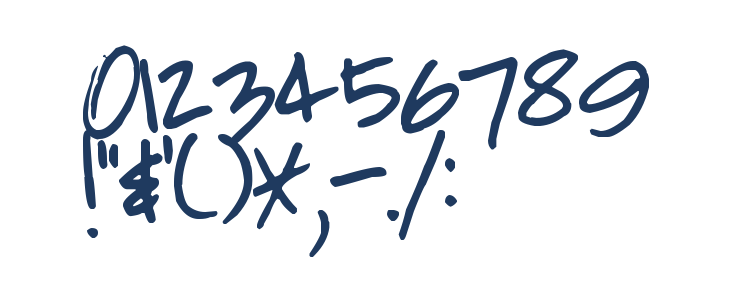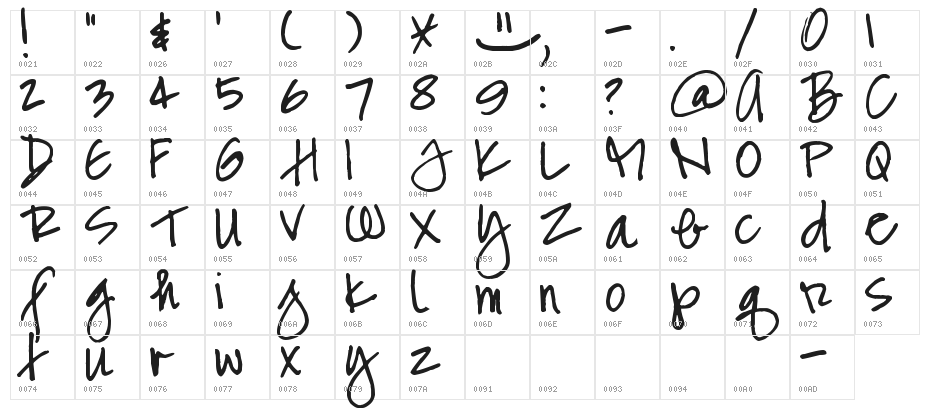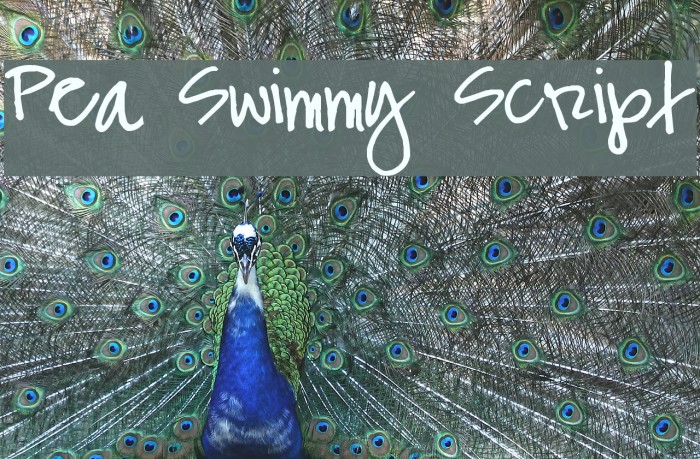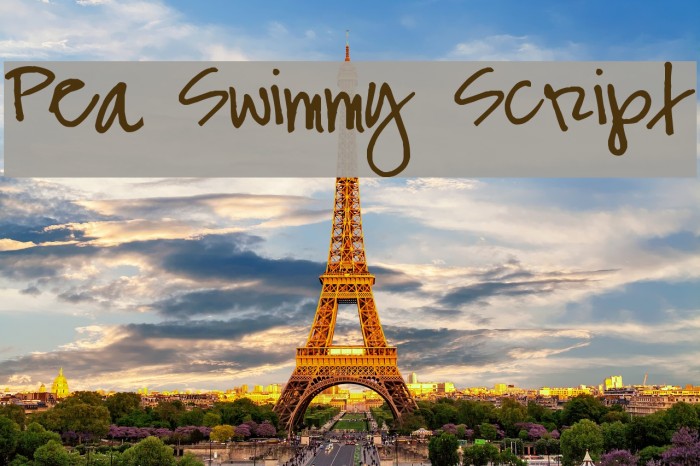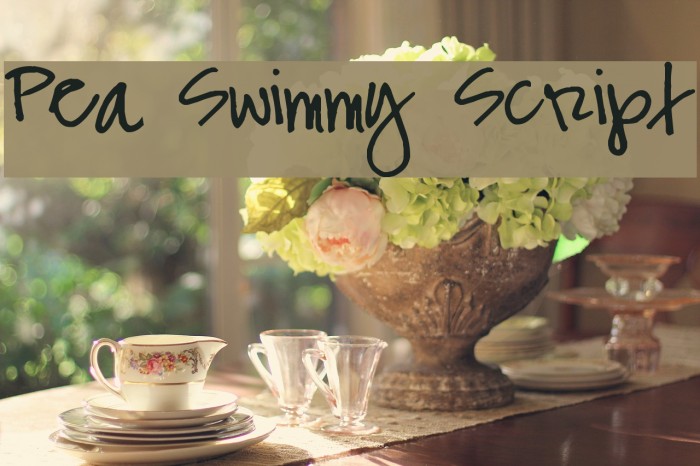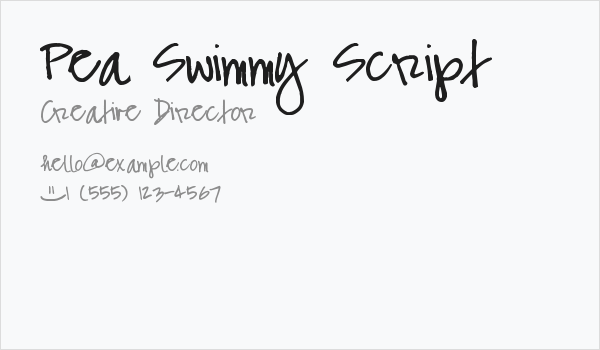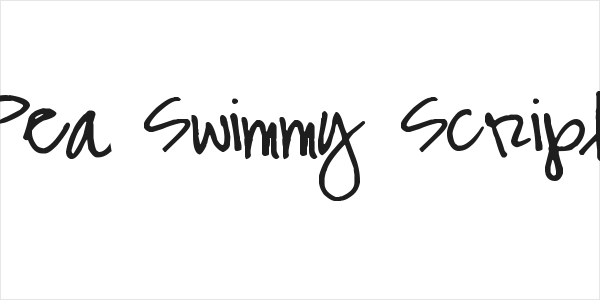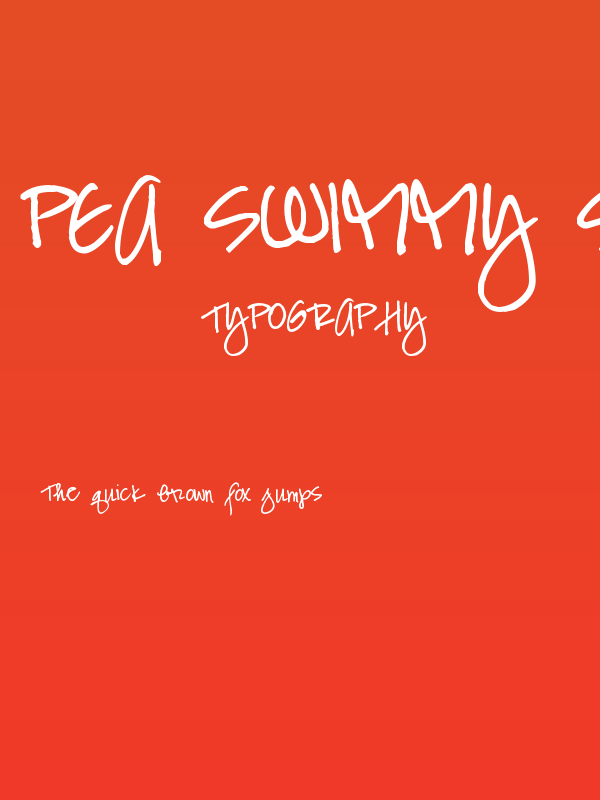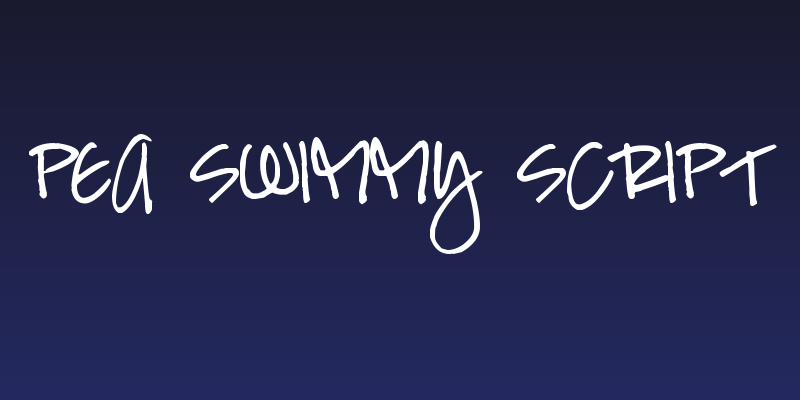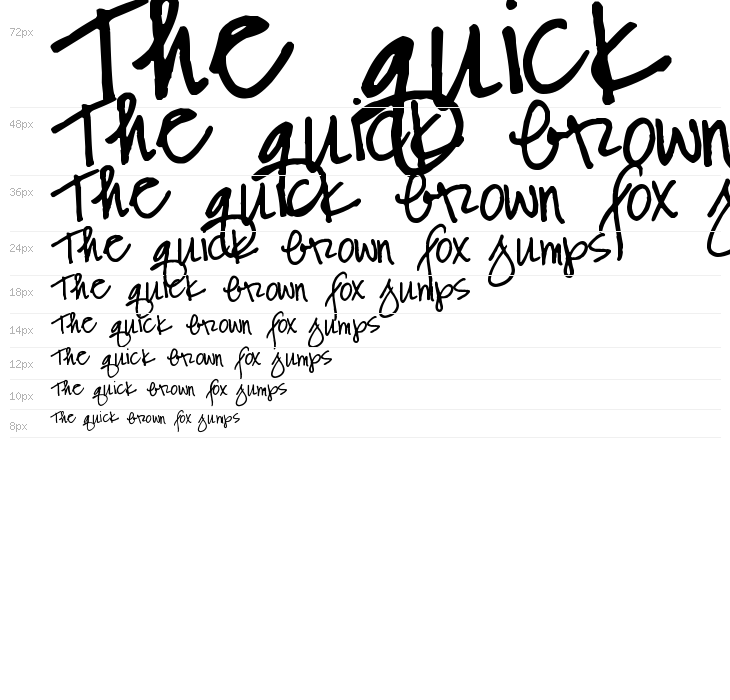
Pea Swimmy Script Font
Pea Swimmy Script Description
This font exudes a playful and energetic vibe, characterized by its handwritten script style. The letters are bold and slightly slanted, giving a sense of movement and fluidity. The strokes are thick and expressive, with varying widths that add a dynamic feel. The uppercase letters are large and prominent, while the lowercase letters maintain a consistent flow. Numbers and special characters are crafted with the same lively touch, ensuring uniformity across the font. The overall appearance is casual yet artistic, making it suitable for creative projects.
| Proposed Projects | Ideal for greeting cards, invitations, personal branding, and creative posters. |